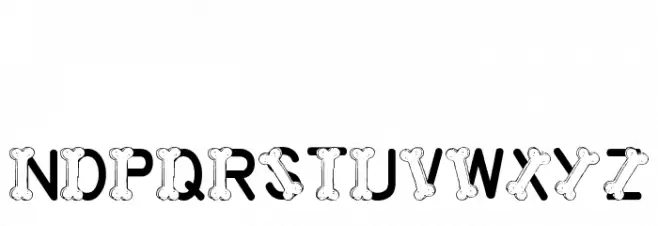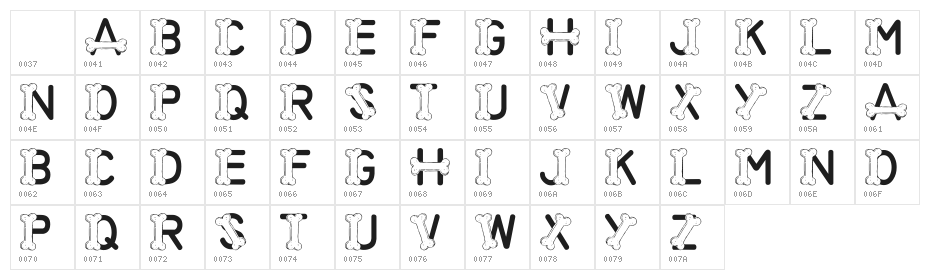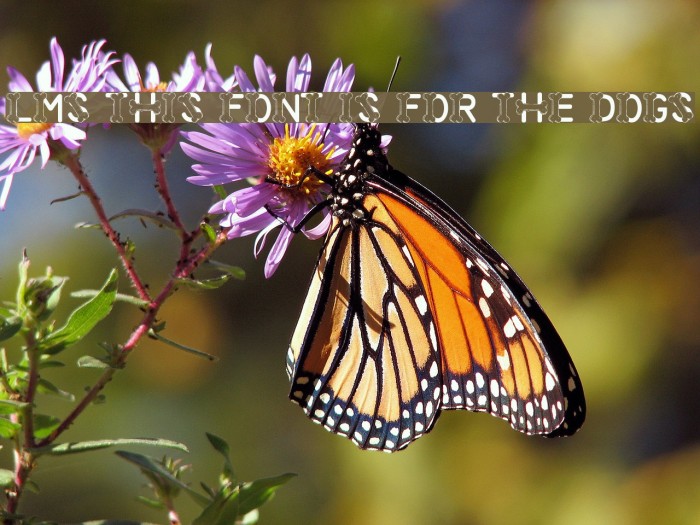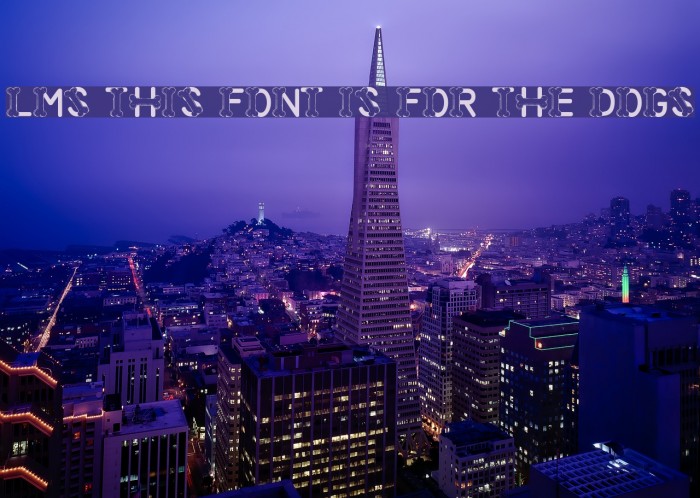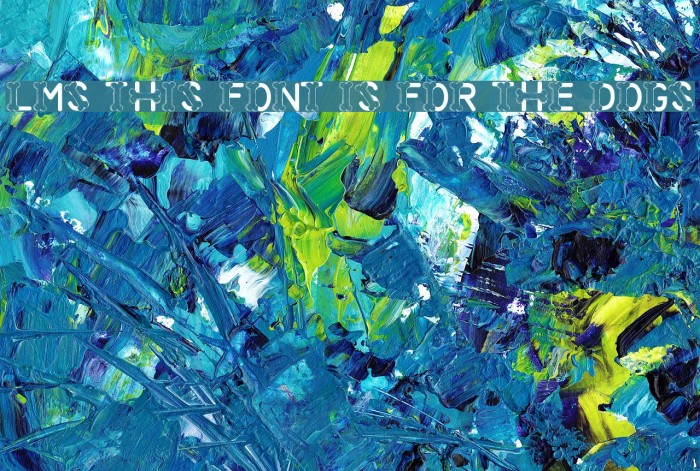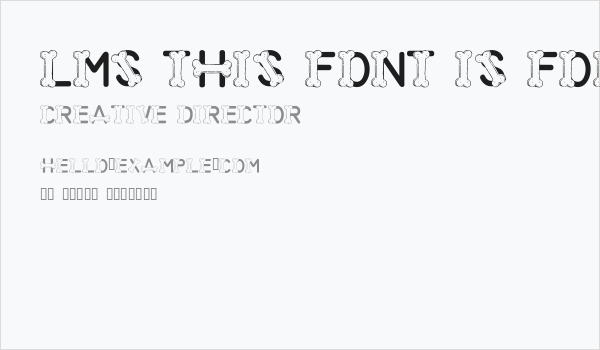
LMS This Font Is For The Dogs Font
LMS This Font Is For The Dogs Description
This playful and whimsical font features characters designed with a bone motif, making it ideal for projects with a pet or animal theme. The letters are constructed with a combination of solid black and outlined bone shapes, creating a unique and eye-catching appearance. The font maintains a consistent structure across all characters, ensuring readability while adding a touch of fun. Its decorative style is perfect for capturing attention and conveying a sense of humor or lightheartedness.
A playful font with bone-shaped characters, perfect for pet-themed designs from Uncategorized fonts.
- Proposed Projects: Ideal for pet store branding, children's books, animal-themed party invitations, or playful advertising campaigns.
- Overall Style: Playful, Whimsical